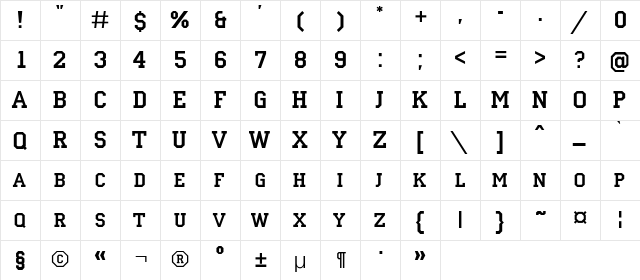
a_CampusCaps Regular
Design Context for a_CampusCaps Typeface
a_CampusCaps offers clean, dependable letterforms without strong stylistic allegiance, making it a practical choice for designers who need flexibility.
Pro Tip: Use a_CampusCaps in both headline and body roles to test its range before committing to a single application.